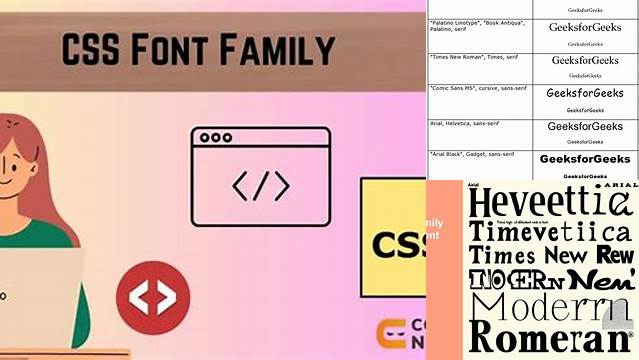
Free Font Families For Your Next CSS Project
The Ubiquitous Charm of Google Fonts: A Deep Dive into Free Font Family Downloads
Hey guys, let's talk about something super essential for any web developer or designer out there: fonts. Specifically, we're diving deep into the world of CSS font family free download options, and where better to start than with the absolute titan, Google Fonts? Seriously, if you haven't explored Google Fonts yet, you're missing out on a treasure trove of typographic goodness. It's not just a collection; it's a curated library offering thousands of high-quality, free font families that are readily available for download and seamless integration into your web projects. The beauty of Google Fonts lies in its accessibility and ease of use. You can browse by category, popularity, style, or even by script, making it incredibly simple to find the perfect typeface to match your brand's personality or your project's aesthetic. Whether you're aiming for a clean, minimalist look with a sans-serif like 'Open Sans' or 'Lato', or a more classic, elegant feel with a serif like 'Merriweather' or 'Playfair Display', Google Fonts has you covered. The downloadable font family aspect means you can host them locally if you prefer, giving you ultimate control and potentially even faster load times. But even if you opt for their CDN, the performance is generally excellent. We're talking about fonts that have been optimized for web use, ensuring they render beautifully across different browsers and devices. The licensing is also a huge plus; almost all fonts are available under the Open Font License, which is incredibly permissive, allowing for commercial and personal use without any hassle. So, when you're searching for CSS font family free download solutions, Google Fonts should undoubtedly be at the top of your list. It's a no-brainer for anyone looking to elevate their designs without breaking the bank.
Exploring Adobe Fonts: Premium Typography at Your Fingertips for Web Design
DaFont and Font Squirrel: Curated Hubs for Downloadable Font Families
Alright, let's circle back to the pure, unadulterated world of free font downloads, where sites like DaFont and Font Squirrel reign supreme. If you're on the hunt for that perfect, unique typeface and you're specifically searching for a CSS font family free download, these platforms are your go-to destinations. DaFont is, let's be honest, a bit of a wild west. It's a massive, sprawling collection of fonts contributed by independent designers from all over the globe. You'll find everything here – from quirky hand-drawn scripts to bold, futuristic sans-serifs, and everything in between. The sheer volume is staggering, and while you need to be a bit discerning (always check the licensing!), the joy of discovery is immense. It's a fantastic place to find those distinctive fonts that can give your project that special edge. Just remember to click through to the font's page to check its specific usage rights – many are free for personal use but might require a license for commercial projects. Font Squirrel, on the other hand, offers a more curated experience. They hand-pick high-quality fonts that are free for commercial use, which is a huge time-saver and peace of mind. Their mission is to make great typography accessible, and they do a stellar job of it. You can easily download font families directly from their site, and they often provide web font kits, which are pre-packaged with all the necessary files (WOFF, WOFF2, TTF, EOT) for easy integration into your CSS. This makes the CSS font family free download process incredibly straightforward. Both sites are invaluable resources for designers and developers looking to expand their font libraries without spending a dime. They are perfect for side projects, personal blogs, or even for testing out different typographic ideas before committing to a paid license. So, dive in, explore, and happy font hunting!
The Power of Open Source Fonts: Accessibility and Versatility in Web Typography
Customizing Your Web Projects: Implementing Downloaded Font Families with CSS
Beyond Aesthetics: Ensuring Readability with the Right Font Family Choice
When we're all excited about snagging a cool CSS font family free download, it's easy to get swept up in the visual appeal – the style, the flair, the uniqueness. But guys, let's pause for a second and talk about something equally, if not more, important: readability. A font might look absolutely stunning in a specimen image, but if it makes your content a pain to read, especially on smaller screens or for extended periods, it's failing its primary job. Readability in typography refers to how easily the characters, words, and blocks of text can be distinguished and understood. Several factors contribute to a font's readability: the clarity of its letterforms (are 'i' and 'l' easily distinguishable?), the spacing between letters (kerning) and lines (leading), the x-height (the height of lowercase letters like 'x'), and the overall weight and contrast. For body text, which forms the bulk of content on most websites, you generally want to opt for font families that are clean, well-proportioned, and have clear distinctions between characters. Sans-serif fonts like 'Roboto', 'Lato', or 'Open Sans' are often favored for body text on the web due to their clean lines and excellent rendering on screens. Serif fonts like 'Merriweather' or 'Source Serif Pro' can also be highly readable if designed well for digital use, often lending a more traditional or literary feel. When you're browsing for CSS font family free download options, take a moment to test them out. Preview them with longer sentences, not just single words. Consider how they'll look at smaller sizes. Is the text crisp, or does it blur together? Does the font family offer different weights (light, regular, bold) that are also readable? Choosing a font that prioritizes readability ensures a better user experience, keeping visitors engaged with your content rather than struggling to decipher it. It's the difference between a website that people enjoy and one that drives them away.
The Growing Ecosystem of Free Font Resources Online
We've touched on Google Fonts, Adobe Fonts, DaFont, and Font Squirrel, but the world of CSS font family free download options is continually expanding, guys! The internet is practically bursting with platforms and independent foundries that offer fantastic typefaces at no cost. Beyond the giants, there are numerous smaller, curated sites and even individual designers who share their work freely. For instance, many academic institutions or open-source initiatives contribute high-quality fonts. Think about places like the Open Foundry or various GitHub repositories where developers share custom fonts or collections. Even platforms like Behance or Dribbble, while primarily portfolios, often feature designers offering freebies or links to their free font collections. You just need to know where to look and how to filter. Searching specifically for "open source fonts," "fonts for commercial use free," or the direct term "CSS font family free download" can uncover gems. The key takeaway here is that the barrier to accessing beautiful and functional typography has never been lower. This democratization of design resources means that everyone, from a student working on a class project to a startup launching its first product, can leverage high-quality font families to create professional-looking websites. The sheer volume and variety available mean you're bound to find something that perfectly suits your needs, no matter how niche. The constant influx of new free font family downloads ensures that web design remains visually dynamic and ever-evolving. It's an exciting time to be involved in web development, with such a rich ecosystem supporting creativity and accessibility.
Selecting Font Pairings: Combining Different Font Families for Impact
Okay, so you've got your eye on a killer CSS font family free download, but a website rarely looks its best with just one font, right? The magic often happens when you skillfully combine different font families. This is called font pairing, and it's a crucial skill for creating visual hierarchy and adding depth to your design. The general rule of thumb is to pair a more distinctive or decorative font with a simpler, highly readable one. For example, you might choose a bold, eye-catching font for your main headings (H1, H2) and then use a clean, neutral sans-serif or serif for your body text. This contrast creates visual interest and guides the reader's eye through the content. A common and effective pairing strategy is to combine a serif font with a sans-serif font. They offer a distinct contrast in style while often complementing each other harmoniously. For instance, pairing the classic serif 'Merriweather' with the clean sans-serif 'Lato' can create a sophisticated look. Another approach is to use different weights or styles within the same font family. If your chosen font family has a robust set of weights (e.g., light, regular, bold, black), you can use these variations to establish hierarchy. A light weight for subtle text, a regular for body copy, and a bold or black for headings can create a cohesive yet dynamic typographic system. When exploring CSS font family free download options, think about how potential pairings might work. Look for fonts that have multiple weights and styles available. Many font sites offer pairing suggestions, which can be a great starting point. Experimentation is key here – don't be afraid to try different combinations until you find what resonates with your project's aesthetic and communication goals.
Web Font Performance: Optimizing Your Downloaded Font Families for Speed
Finding that perfect CSS font family free download is awesome, but we gotta talk about performance, guys. Large font files can significantly slow down your website's loading time, which is a big no-no for user experience and SEO. Fortunately, there are several ways to optimize your downloaded font families for the web. Firstly, always use modern formats like WOFF2. It offers superior compression compared to older formats like TTF or EOT, resulting in smaller file sizes. Most font platforms and download sites will provide WOFF2 versions. Secondly, only load the font weights and styles that you actually need. If you're only using the regular and bold weights of a font, don't download and link to the light, italic, extra-bold, and black versions. This is easily managed with Google Fonts by customizing your import URL, and with self-hosted fonts, you simply include only the files you use in your @font-face declarations. Thirdly, consider using font-display property in your CSS @font-face rule. Properties like font-display: swap; tell the browser to show a fallback font immediately while the custom font is loading, and then swap it in once it's ready. This prevents invisible text (FOIT - Flash of Invisible Text) and improves perceived performance. Another strategy, especially if you're using multiple fonts, is to host them locally rather than relying on external services, though services like Google Fonts are highly optimized and often cached. However, local hosting gives you fine-grained control. By being mindful of file formats, necessary styles, and rendering behavior, you can ensure that your beautiful free font family downloads don't come at the cost of a sluggish website. Performance is key, even with CSS font family free download options.
The Rise of Independent Font Foundries and Their Free Offerings
Beyond the massive aggregators like Google Fonts, the landscape of CSS font family free download is also significantly enriched by independent font foundries and individual type designers. Many talented professionals create stunning font families and choose to release some of them for free, either as a way to build their portfolio, attract clients for custom work, or simply to contribute to the design community. Sites like Lost Type Co-op operate on a